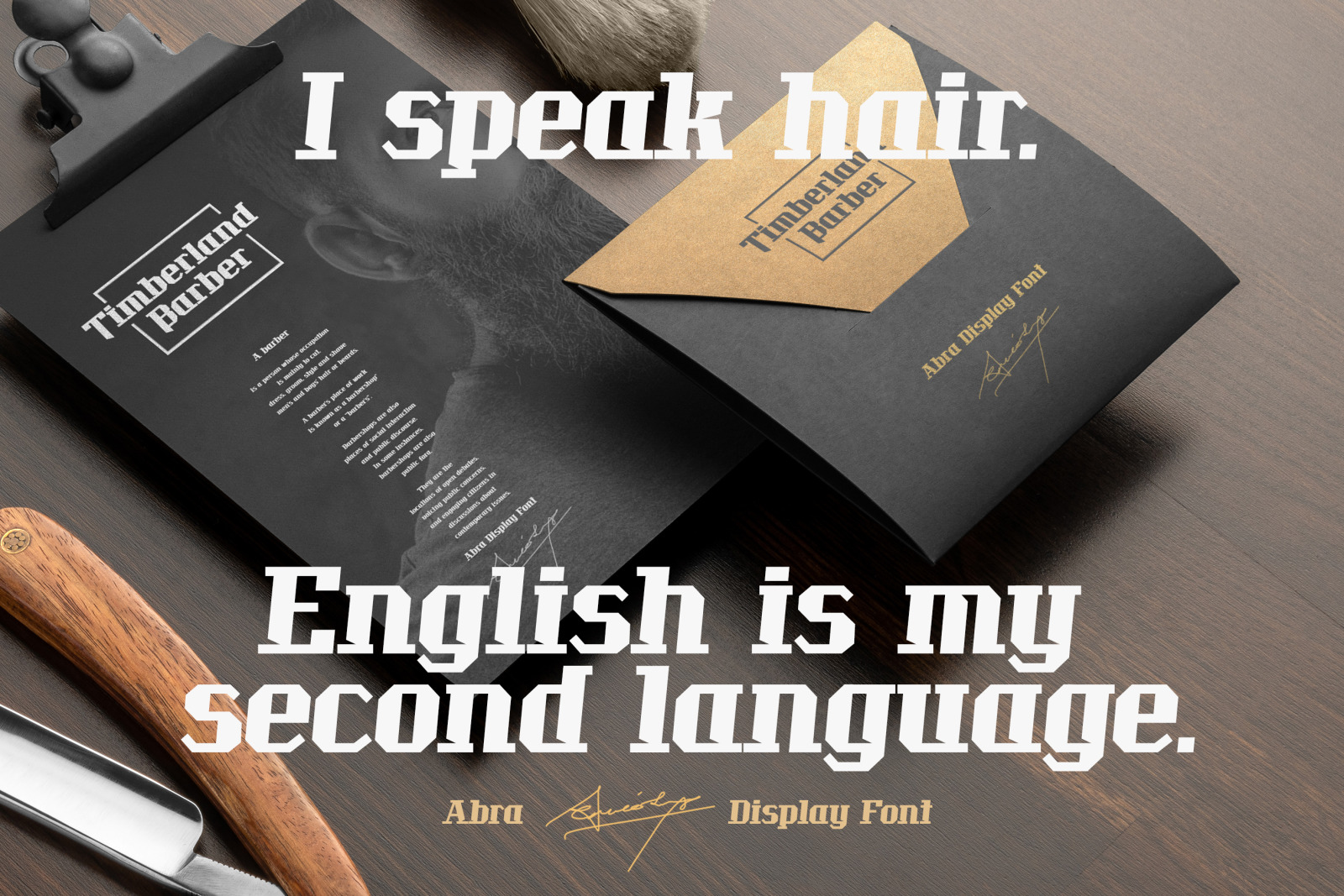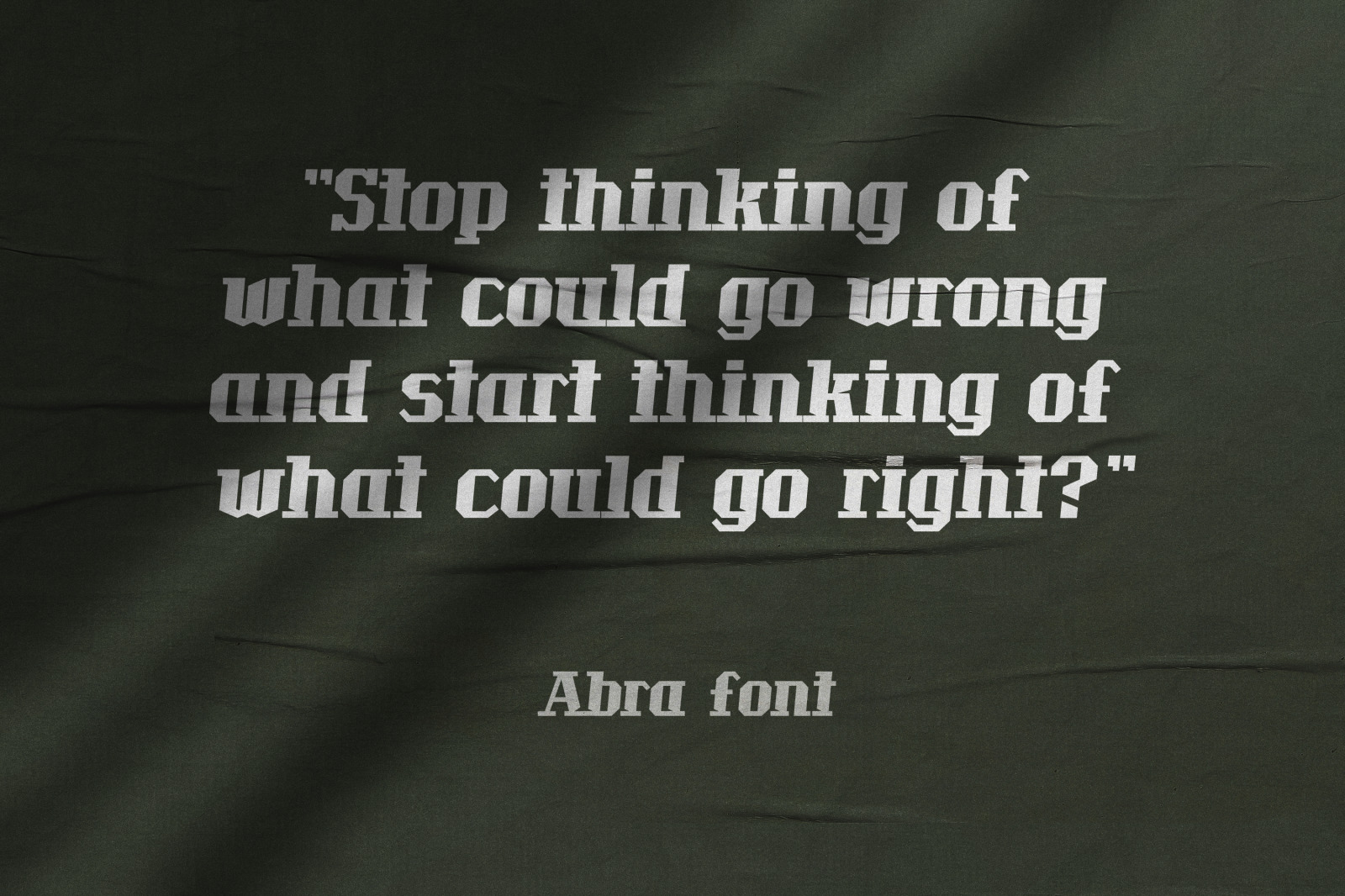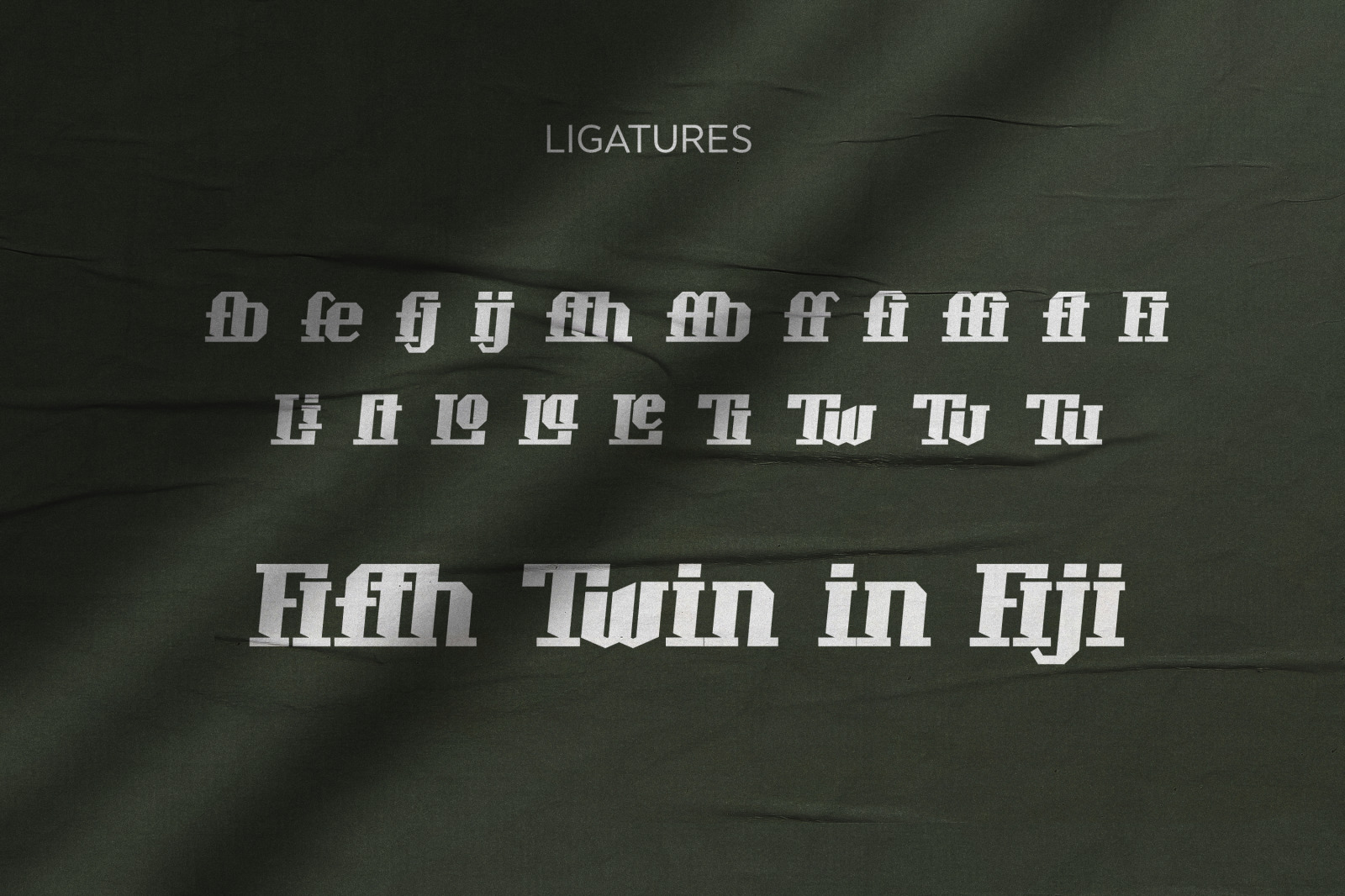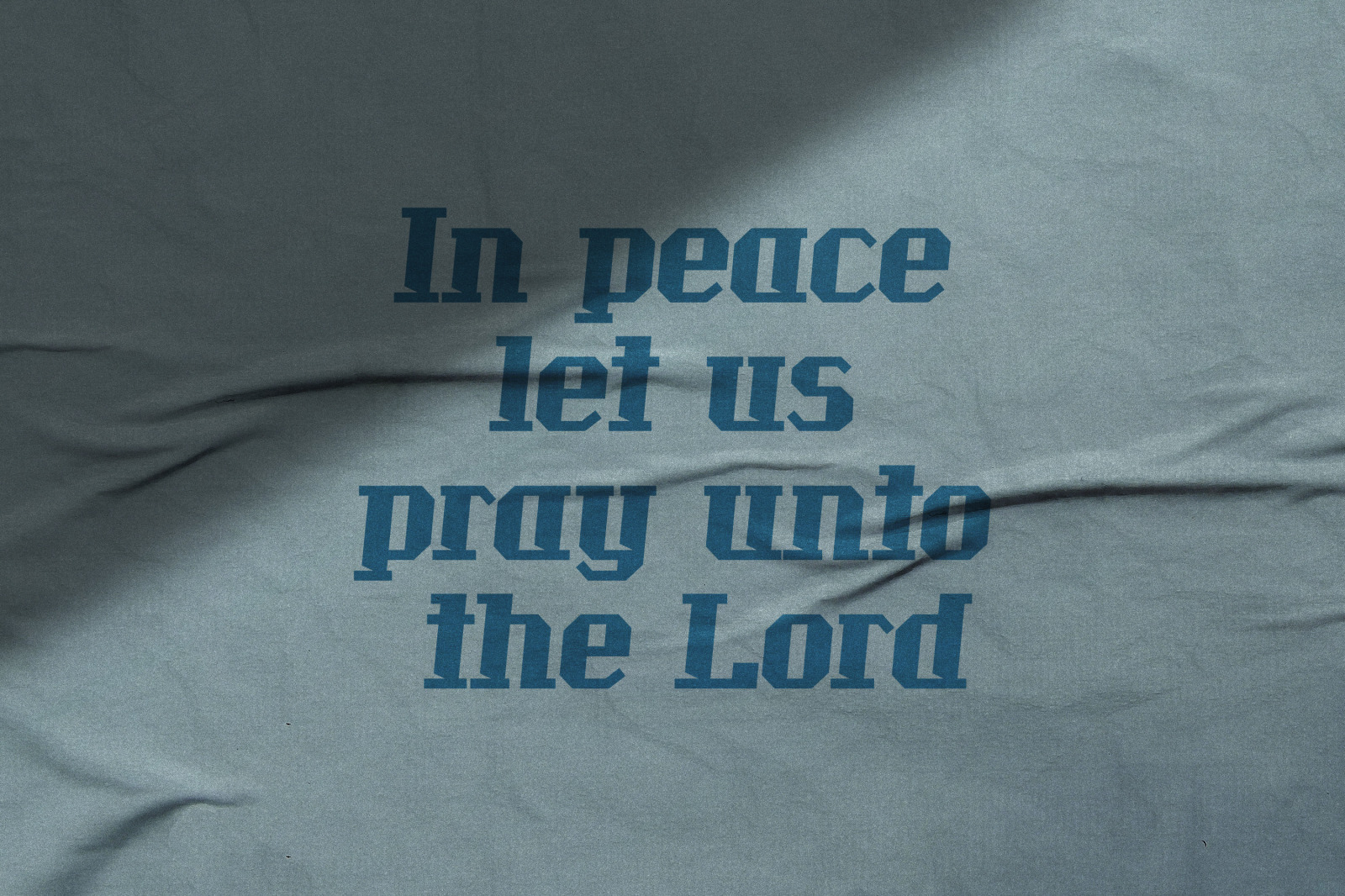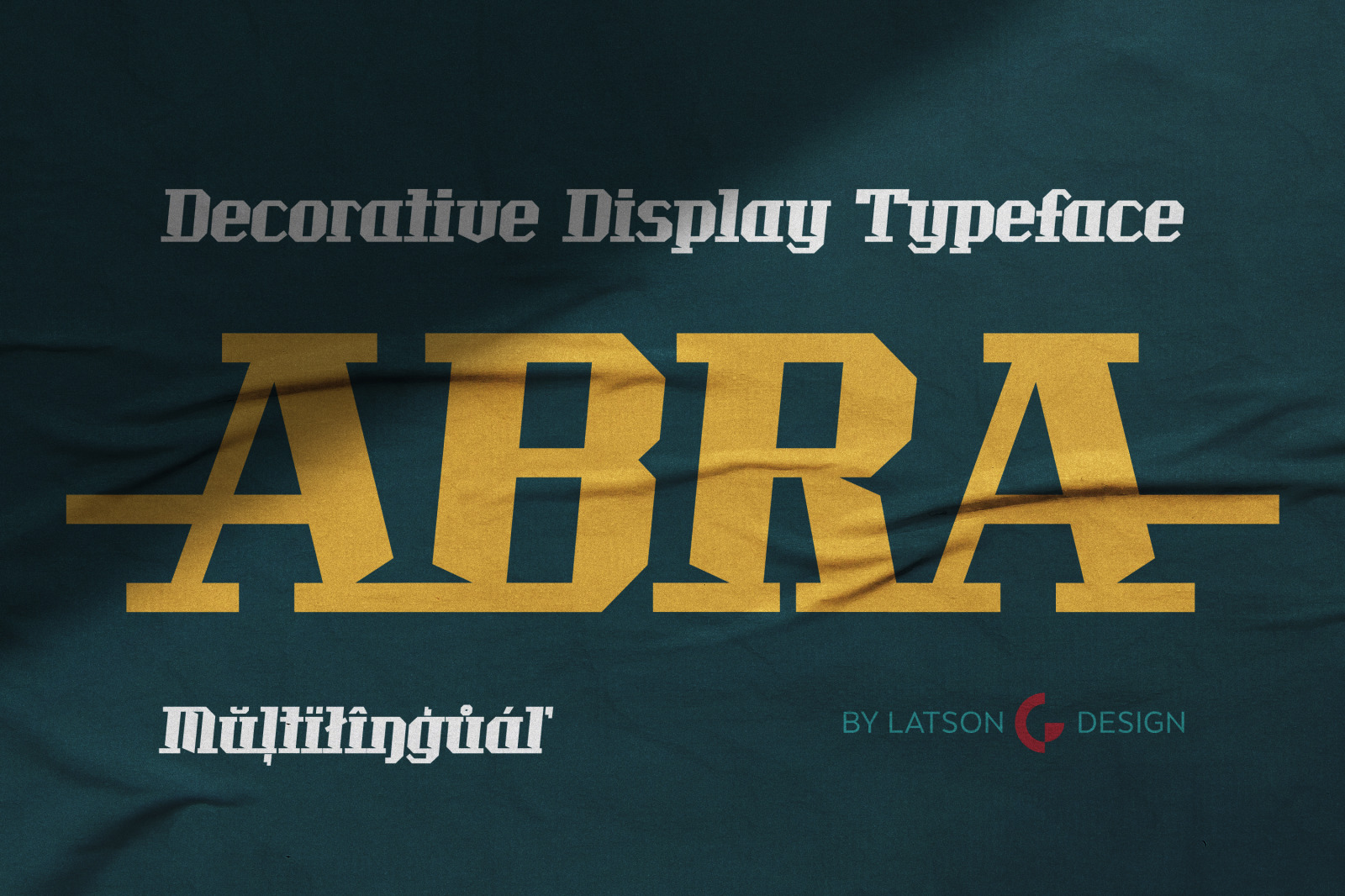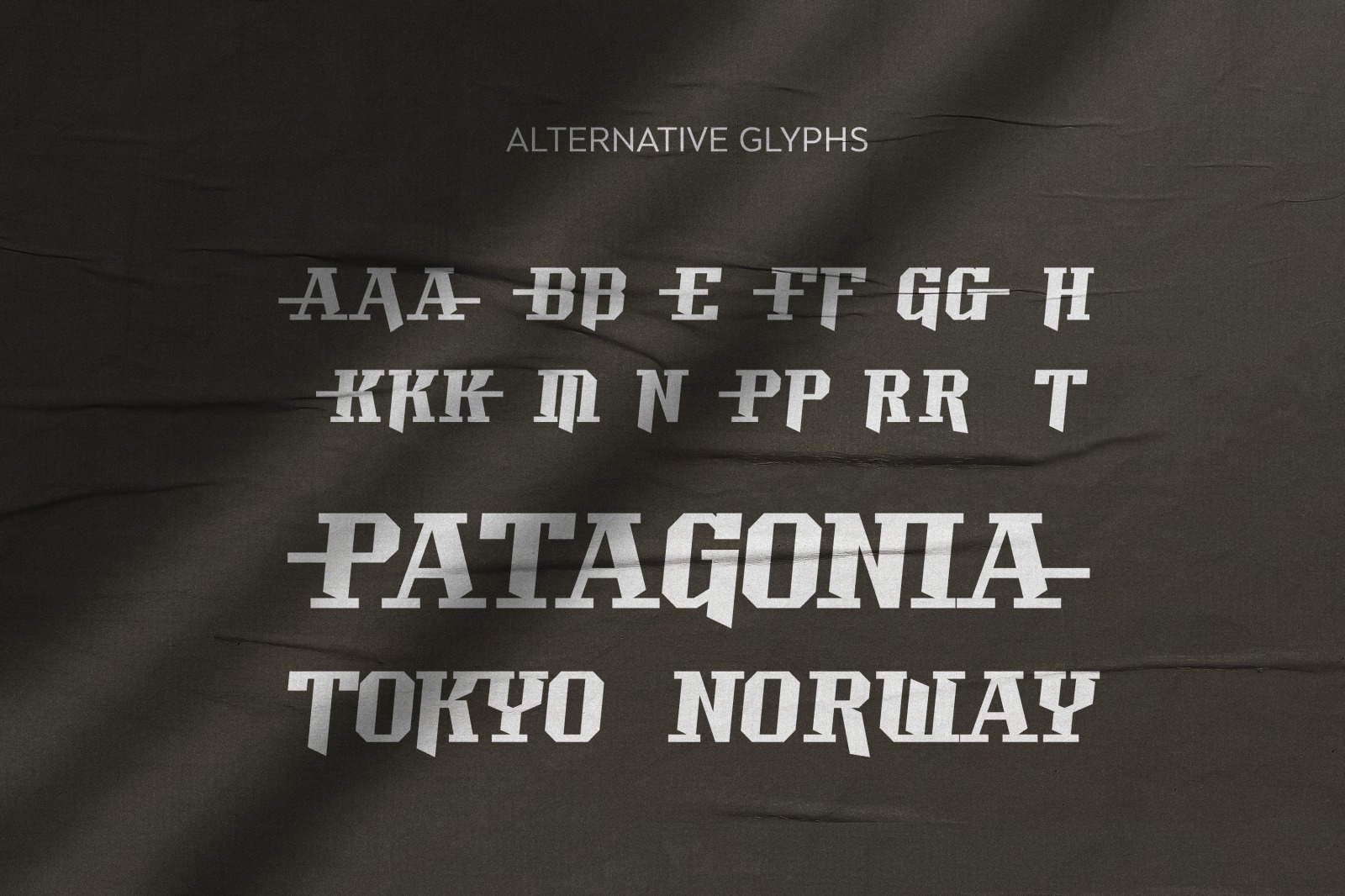
ABRA a decorative display typeface
ABRA typeface is a decorative display font. Bold and robust.
Good for strong bold messages on posters, headlines, and logos.
Sport, hard work, workshop, hiking, advetnures.
Multilingual support and alternate glyphs.